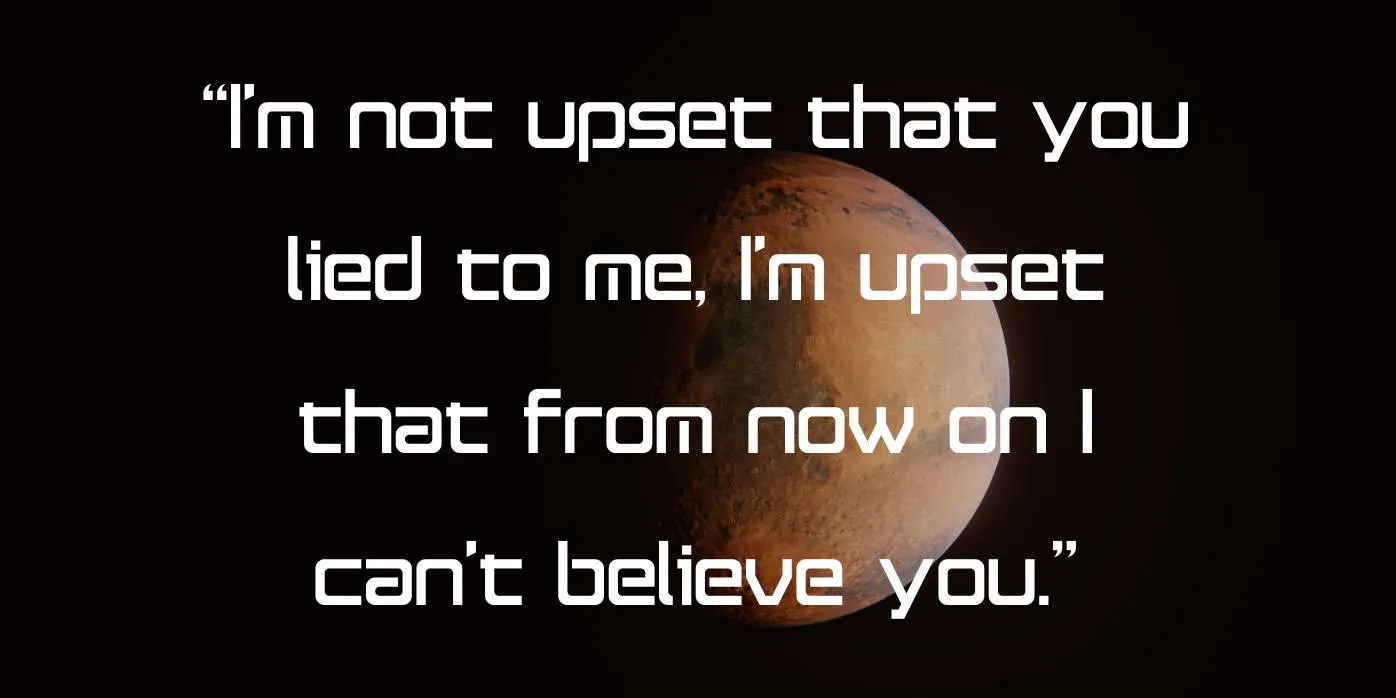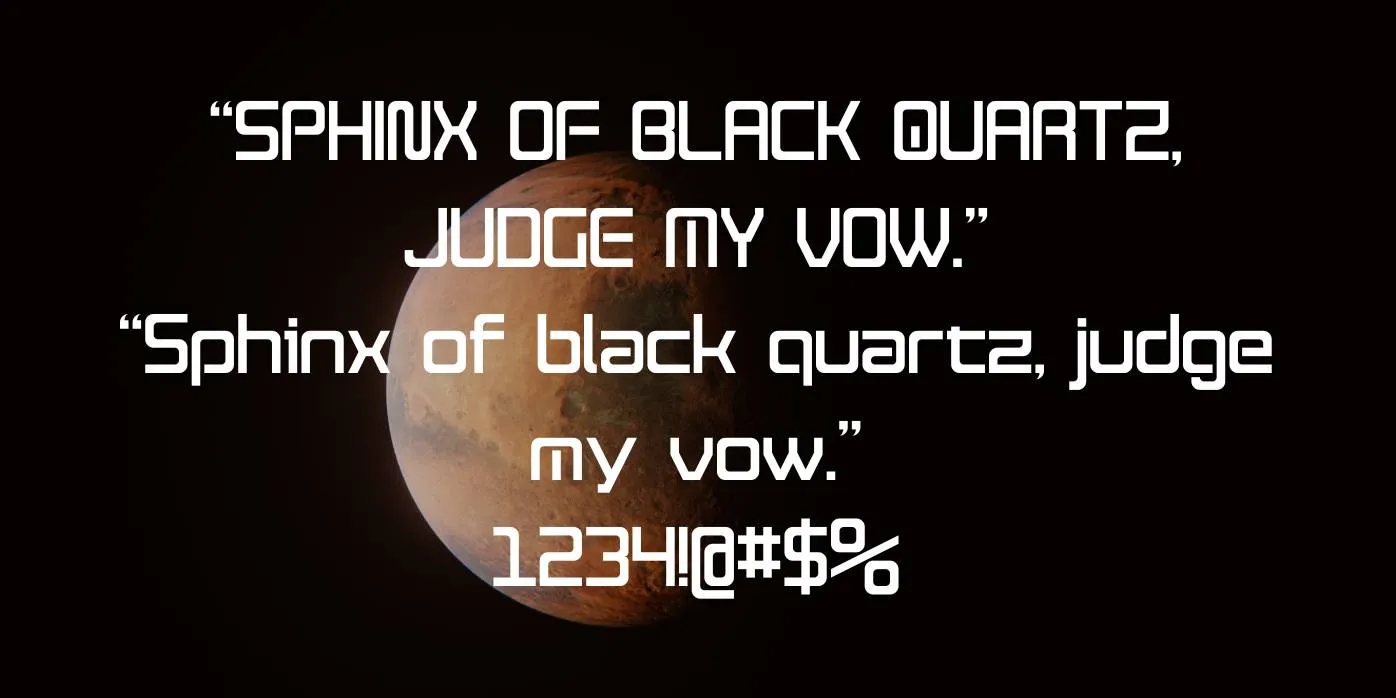
Satella Font belongs to the Techno font family that was created by Zephram, it has rounded characters and a sci-fi appearance that makes it different and unique from other typefaces.
This font comes in Regular weight along with stylish and unique characters in large and small letters, numbers, punctuations, symbols, signs, and special characters. When in need of a font with matching style and characters, look no further than the spicy rice font as it perfectly aligns with the font mentioned.
This font style is a perfect option for all sorts of design projects such as titles, logos, signatures, printing, branding, marketing materials, promotional videos, publicity, book covers, online ads, magazines, and a lot more. With its graceful, unique, and modern format, this typeface design can make your content, displays, and projects more innovative, elegant, and splendid.
This lettering style is perfect for digital and printing displays. This font style is a great choice for the making of website graphics, photographs, graphics, documentation, scripts, slips, statement writing, header and footer, and much more.
Whether you are a creator, developer, or designer, this typeface is a top choice for all of your designs. If you’re looking for a typeface for a professional logo, cover, headlines, or book title then you can use this stylish font style in various projects to make them elegant and more impressive.
| Style | Techno |
What type of font is Satella Font?
This font belongs to the Techno font family that was created by Zephram. It has rounded characters and a sci-fi appearance that makes it different and unique from other typefaces.
What are the characteristics of Satella Font?
This font is a Techno font that has rounded characters with a sci-fi appearance that can give a unique, stylish, and contemporary look to any type of design.